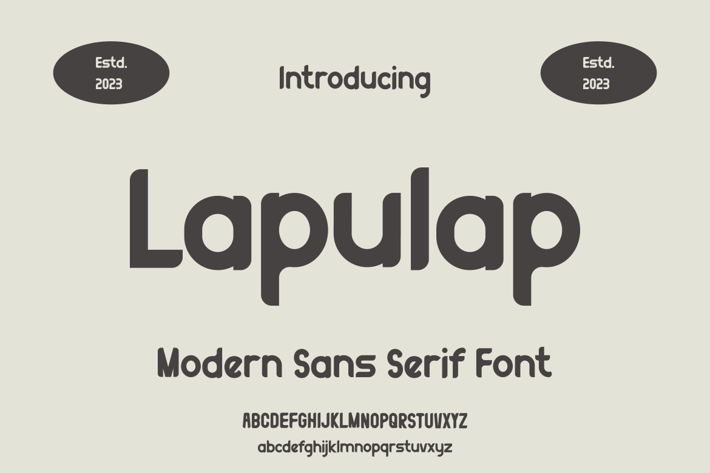
Lapulap Font
Introducing our new product Lapulap Font - Modern Font
Lapulap Font - Modern Font is a bold and authentic display font. The font is suitable for any branding project like logo, t-shirt printing, esport, and many more. outstanding in a wide range of contexts.